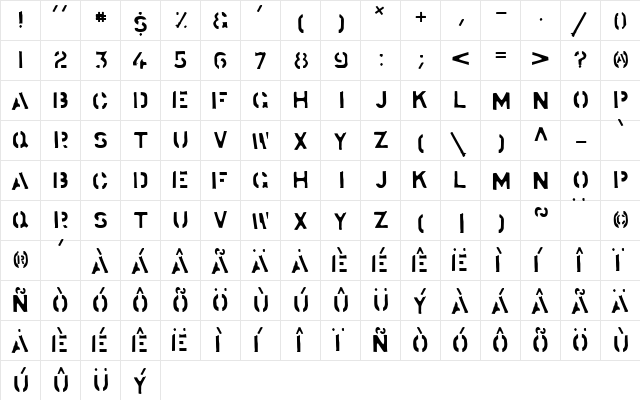
Stockstill Solid Regular
Design Context for Stockstill Solid Typeface
Stockstill Solid offers clean, dependable letterforms without strong stylistic allegiance, making it a practical choice for designers who need flexibility.